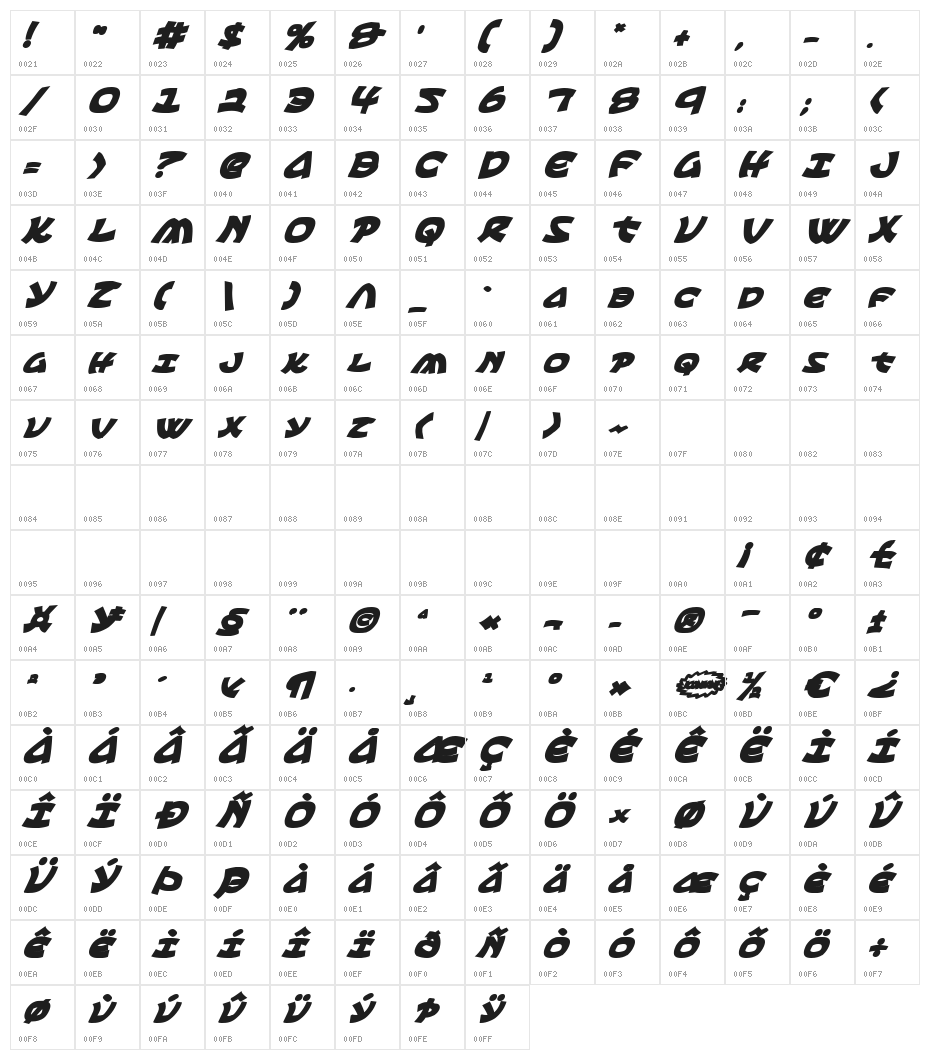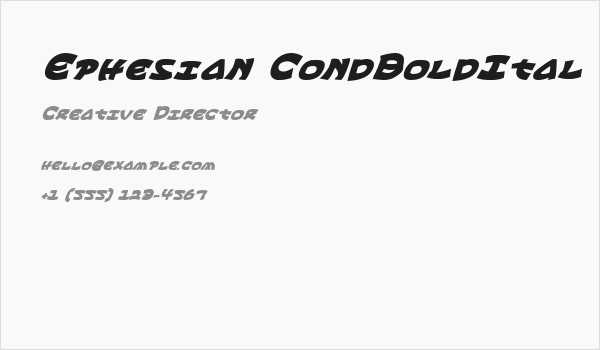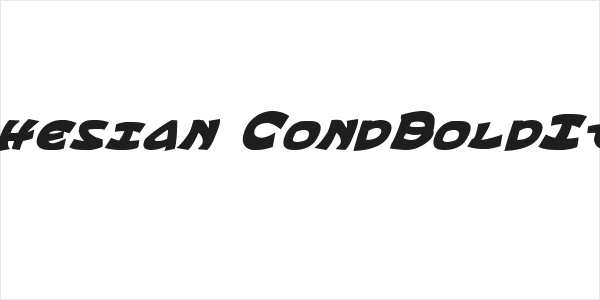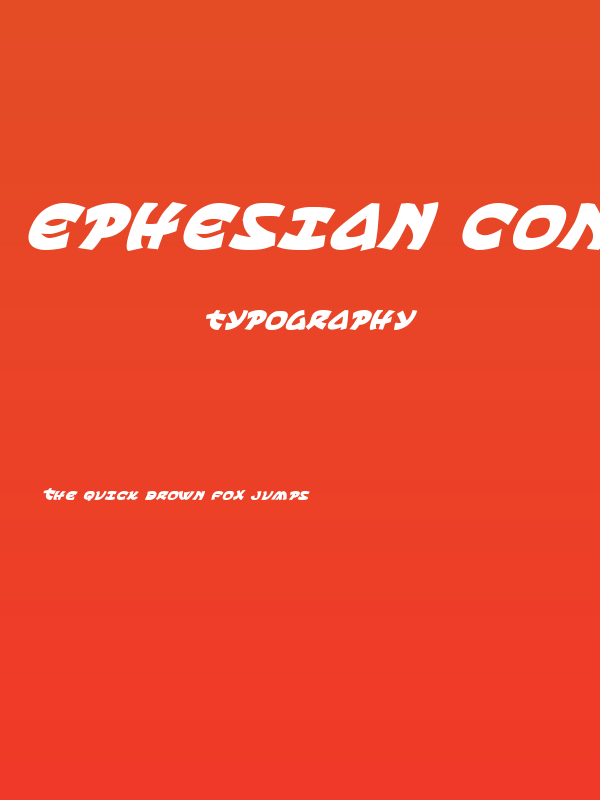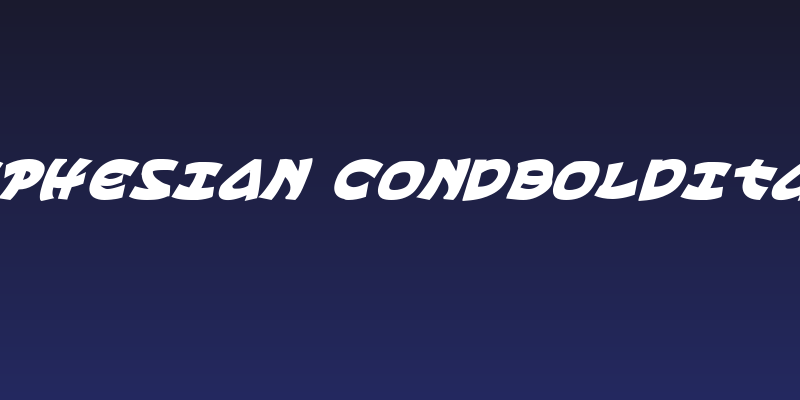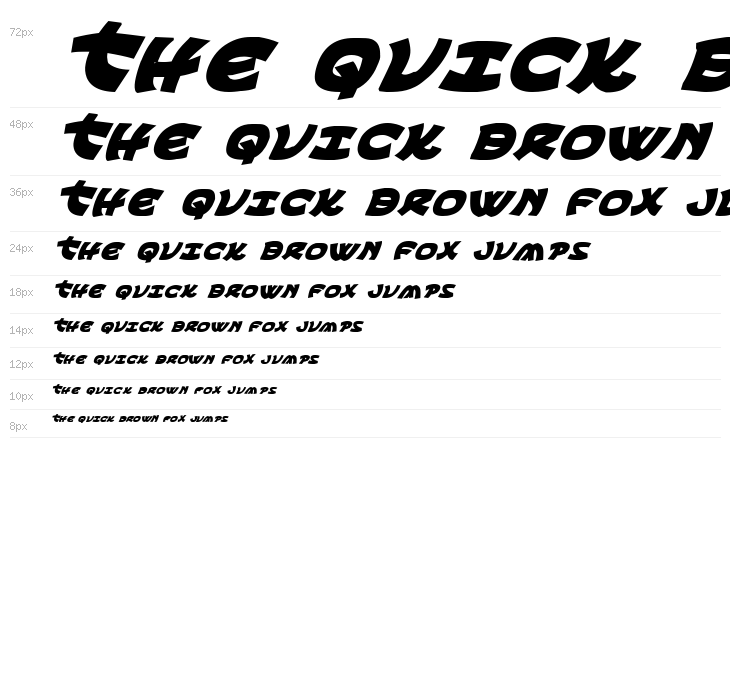
Ephesian CondBoldItal Font
Ephesian CondBoldItal Description
This font exhibits a bold and dynamic style with a condensed width and italic slant, giving it a sense of movement and energy. The characters are thick and robust, with a high contrast between the strokes, enhancing their visibility and impact. The design features smooth curves and sharp angles, creating a modern and edgy appearance. The uppercase and lowercase letters maintain a consistent style, while the numerals and special characters are designed to complement the overall aesthetic. This font is well-suited for projects that require a strong and attention-grabbing typeface.
| Proposed Projects | Ideal for sports branding, dynamic posters, eye-catching headlines, and modern logos. |